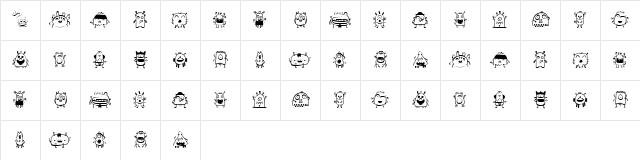
space dude Regular Free Font
space dude Regular
Foundry: dcoxy medina gregory
Designer: dcoxy MG
Design Context for space dude
space dude is a composed and adaptable typeface that performs quietly and consistently across a wide range of design contexts.